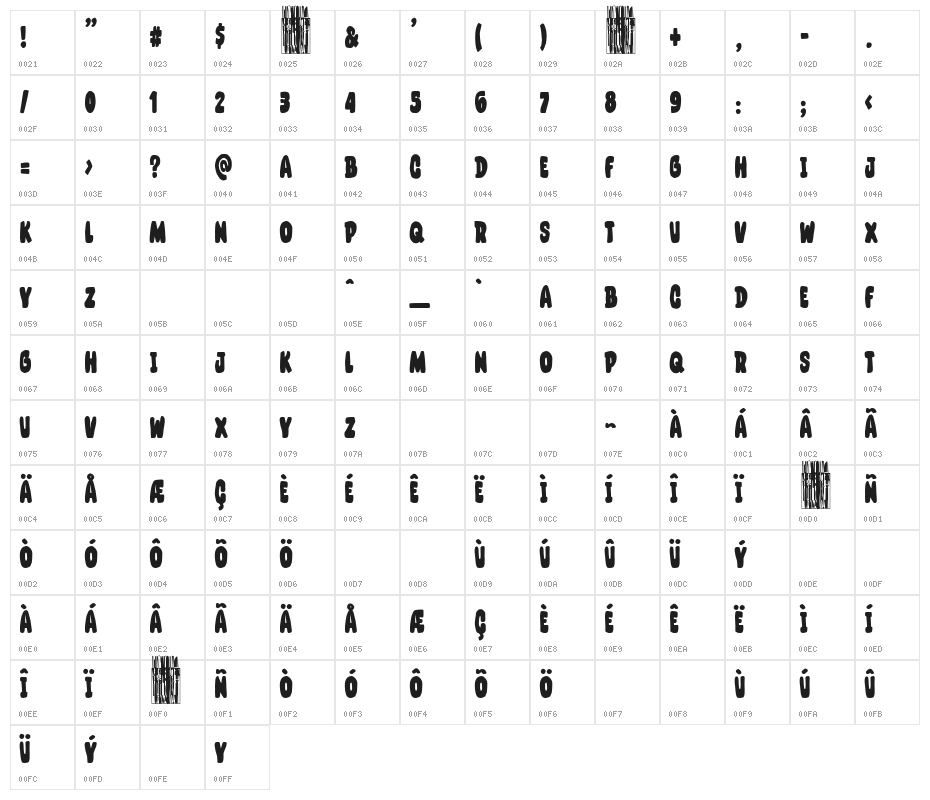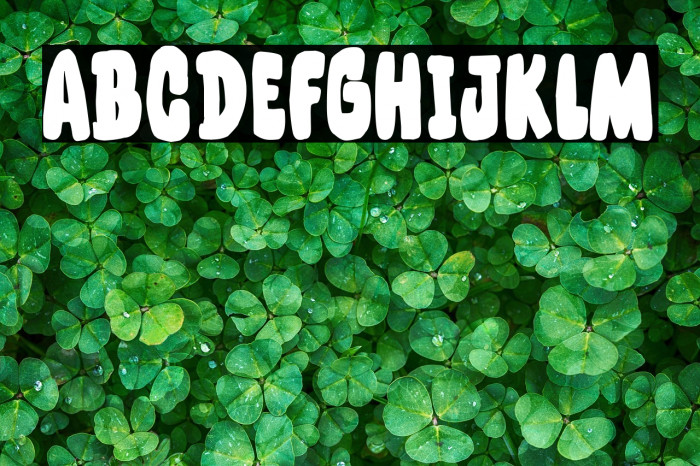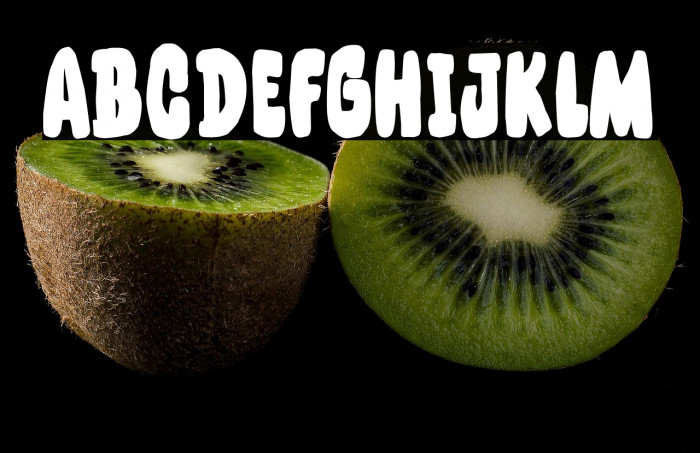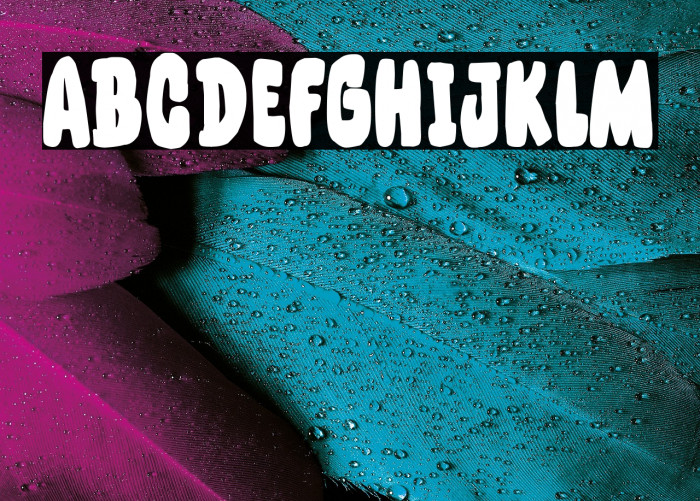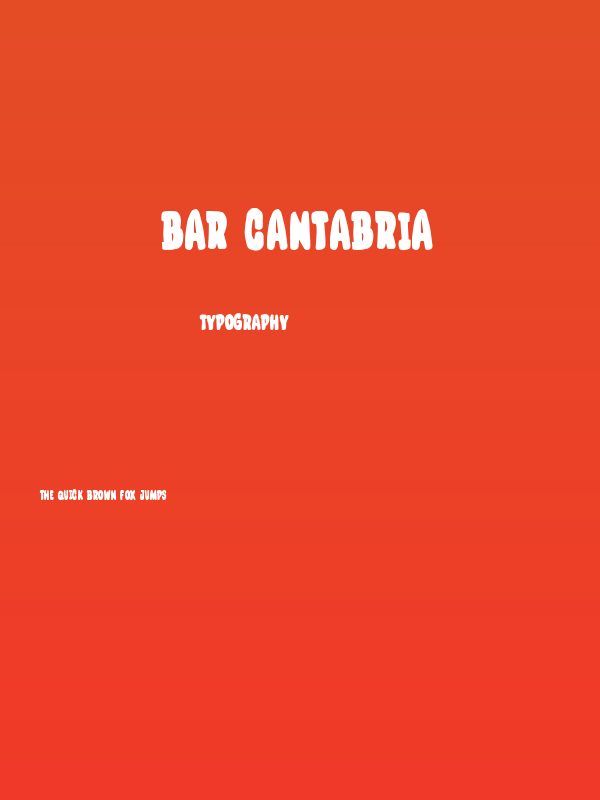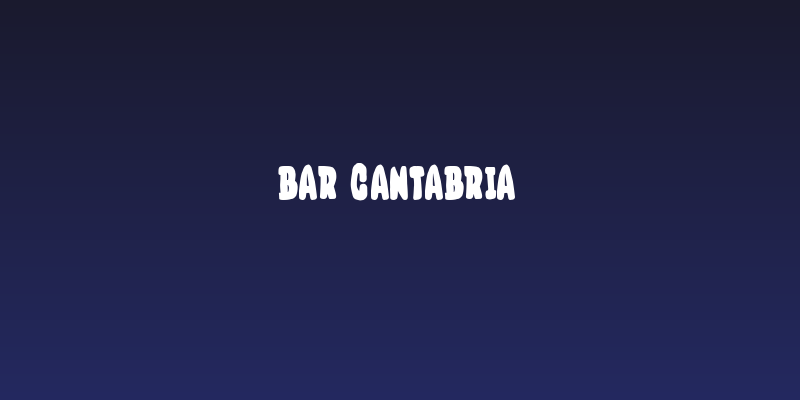
Bar Cantabria Font
Bar Cantabria Description
This font exhibits a bold and playful style, characterized by its thick, rounded strokes and slightly irregular shapes. The letters have a hand-drawn appearance, giving them a whimsical and informal feel. The uppercase and lowercase letters maintain a consistent weight, contributing to a cohesive overall look. The numbers and special characters follow the same design principles, ensuring uniformity across all glyphs. The font's unique style makes it suitable for projects that require a fun and engaging visual impact.
| Proposed Projects | Ideal for children's books, playful branding, posters, and event invitations. |